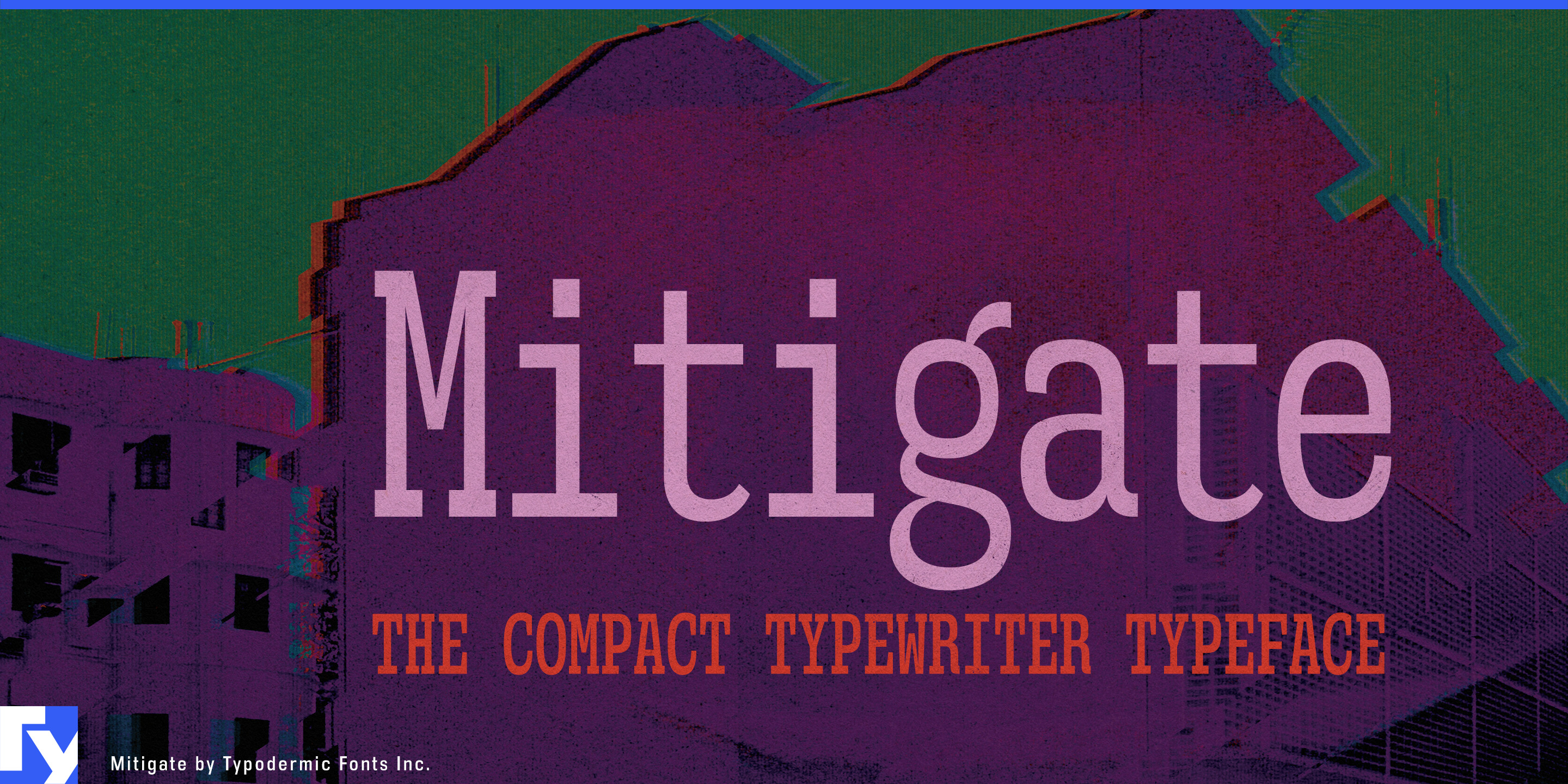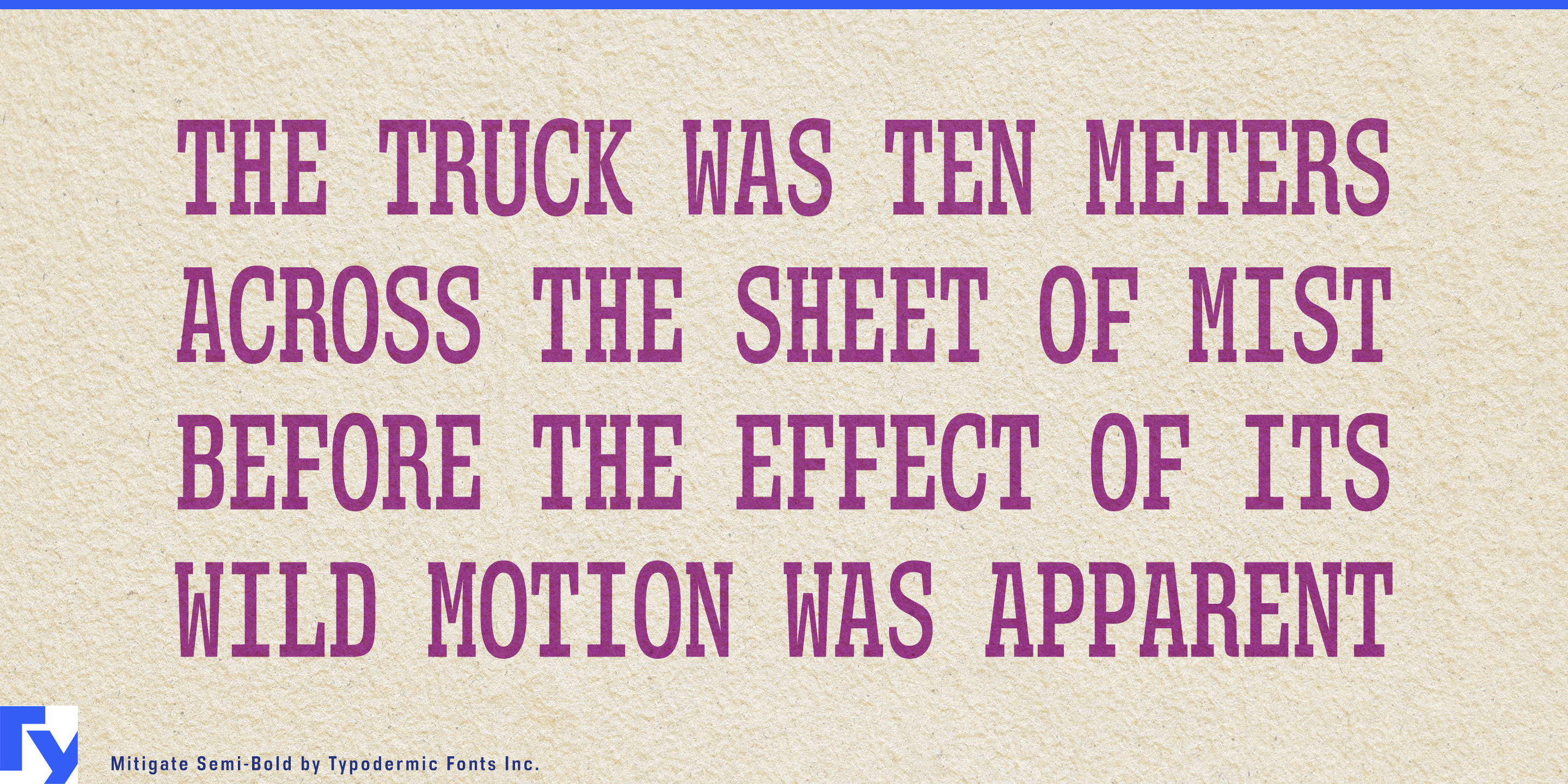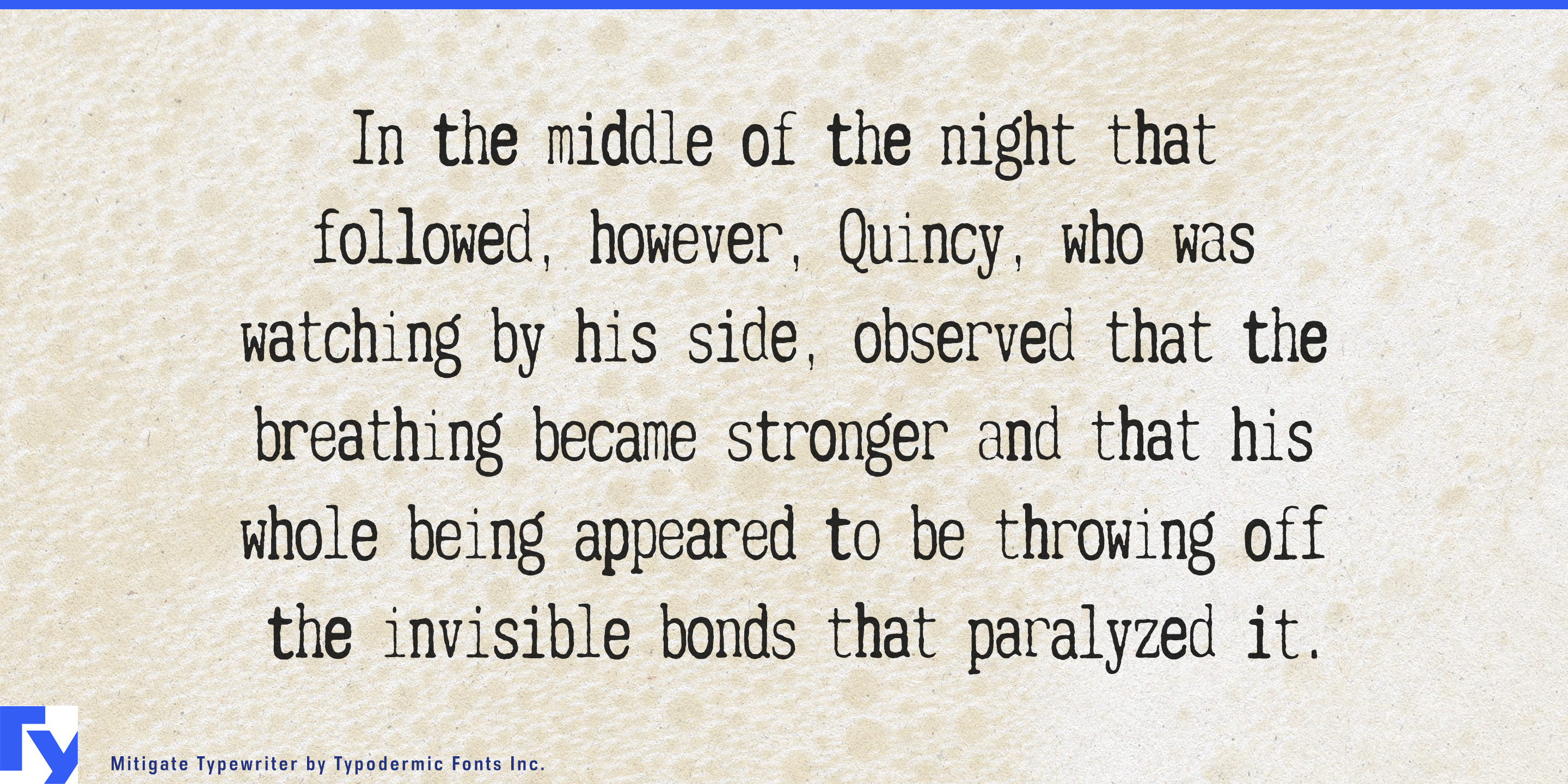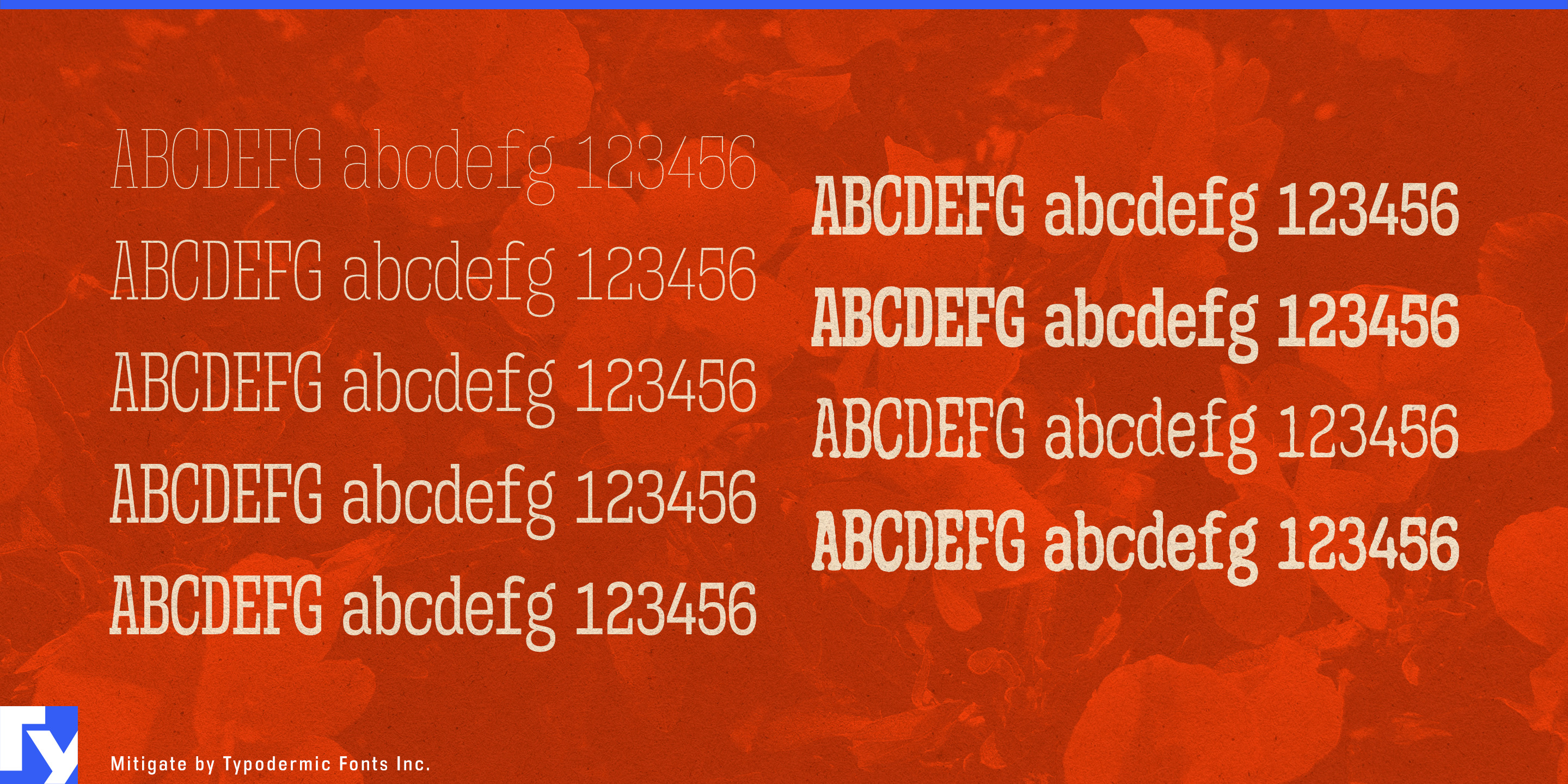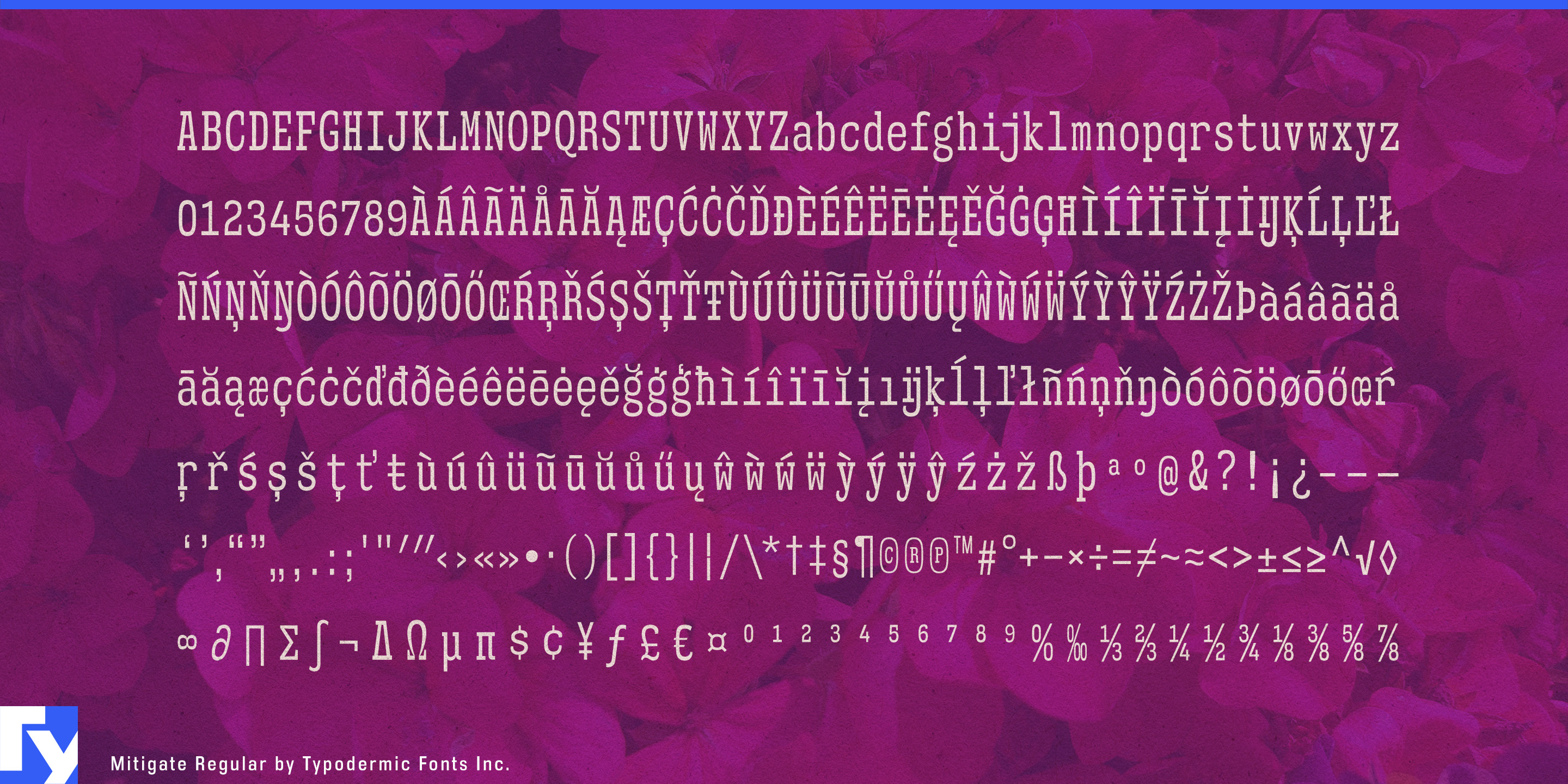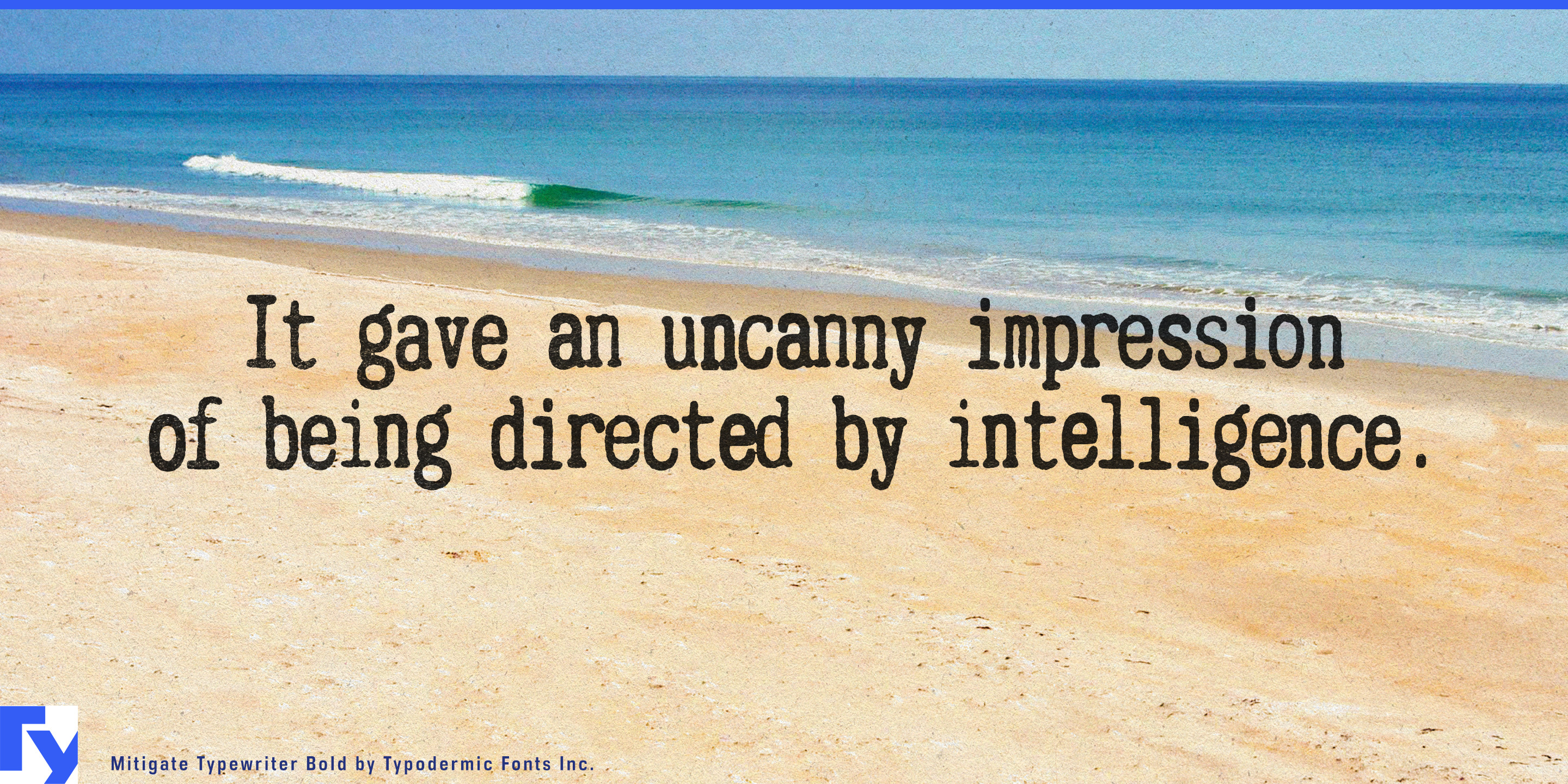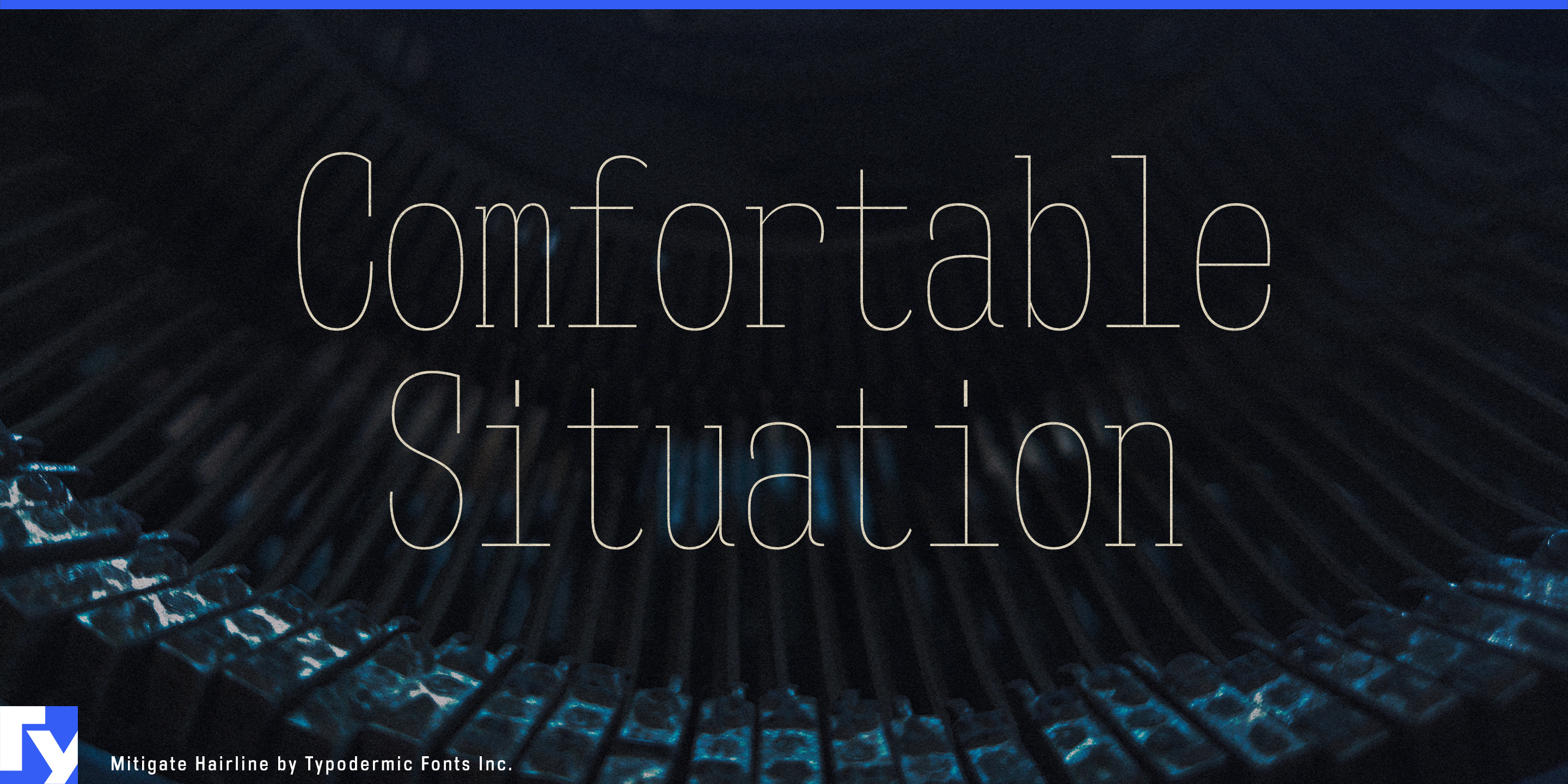
Mitigate
Monospaced typography has an obvious practical cost: every character gets the same amount of horizontal space, including the narrow ones. That fixed rhythm is useful for codes, figures, identifiers, and structured information, but it becomes expensive when columns are tight and strings are long. Mitigate began as a simple “what if” experiment: if traditional typewriter pitches were compressed further, what would the alphabet have to become?
The answer is a narrow monospaced slab serif designed around the constraint rather than copied from a particular typewriter. Forms such as M, W, m, and k were adapted to survive inside the unusually slender character cell, giving Mitigate a compact mechanical rhythm without reducing the alphabet to a historical machine imitation. In the heavier clean styles, modulated strokes make the distinction even clearer; this is a typographic family built from a typewriter-like premise, not a simulation of typebar lettering.
That makes Mitigate especially useful when technical information contains more characters than the layout wants to accommodate. Semiconductor equipment, oscilloscopes, spectrum analyzers, calibration systems, laboratory power supplies, and other electronic test hardware generate model numbers, channel identifiers, option codes, measurements, and comparison data. Mitigate can distinguish those elements in datasheet covers, specification tables, equipment brochures, product-family graphics, and technical catalogues while consuming less horizontal space than a conventional monospace.
Industrial machinery creates the same problem at larger scale. Pumps, valves, bearings, compressors, machine tools, automation systems, and replacement components are often organized through long product codes whose individual characters matter. Parts catalogues, exploded diagrams, service literature, dealer materials, and product selectors need those identifiers to remain visually distinct without forcing every column wider. Mitigate gives part numbers and model codes the unmistakable rhythm of fixed-pitch typography while leaving more room for diagrams, descriptions, and adjacent data.
Aerospace component documentation and energy infrastructure bring similar demands. Serial numbers, revision identifiers, inspection dates, electrical ratings, capacities, configuration names, and component codes accumulate quickly in parts catalogues, technical brochures, installation literature, specification comparisons, and equipment-family identities. Mitigate gives that information a recognizable structure without claiming the role of safety-critical operational typography.
The narrow pitch also suits logistics, fleet systems, and automotive service information, where long strings are part of the visual landscape. Container numbers, trailer IDs, tracking references, VIN fragments, engine codes, service intervals, and replacement-part numbers can become a coherent information layer across fleet reports, vehicle graphics, warehouse-automation presentations, repair literature, and trade-show displays.
Two textured styles extend the family in another direction. When a documentary graphic, archival exhibition, investigation report, or historical presentation genuinely benefits from a worn-ribbon impression, they introduce typewriter texture without requiring a separate design language. The clean family remains the more versatile core.
Mitigate turns narrowness into a working feature. When identifiers are long, columns are crowded, and fixed-pitch rhythm still matters, it lets structured information keep its mechanical order without demanding quite so much of the page.